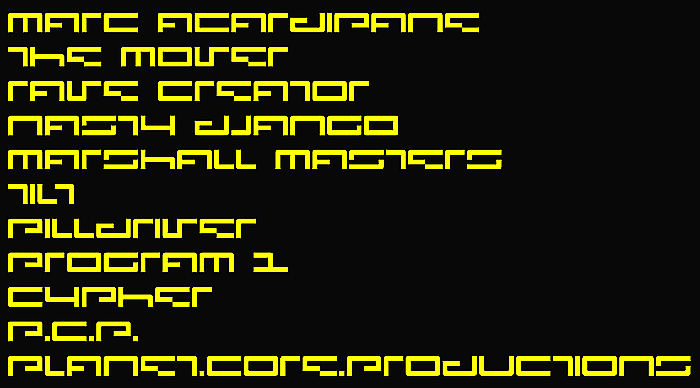
• F.F.M. (ANGEL DUST) — Futurist constructivism style lettering
Digitization of a typeface for one of my all-time favorite record labels, the German (Frankfurt) based "Planet Core Productions". The typeface was seen on many of their vinyls and cds as well as various other stuff. It originated back in 1992 and was custom made by Paul Nicholson for Planet Core Productions.
This is the ANGEL DUST style variation for F.F.M. and this version features an entirely different font, but sourced from that same record label.